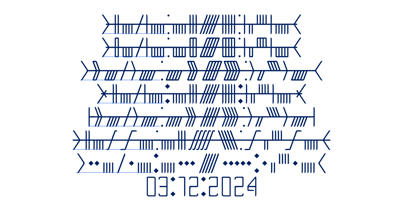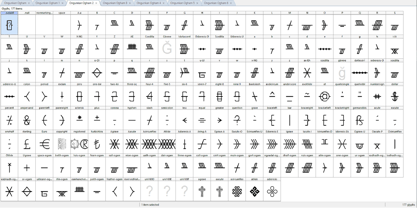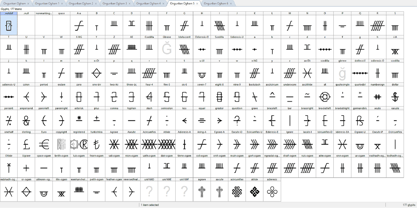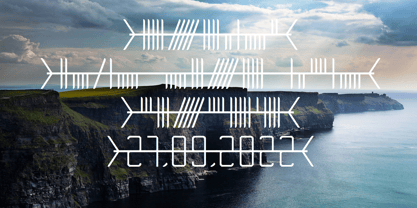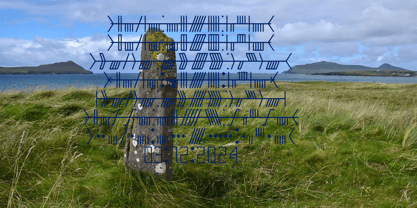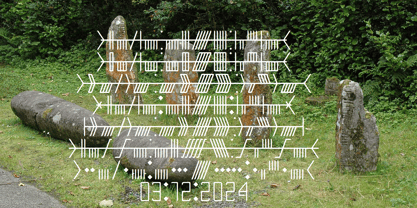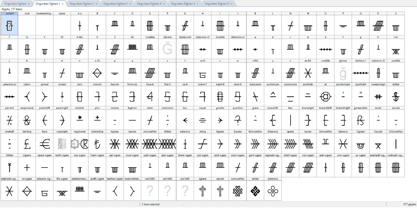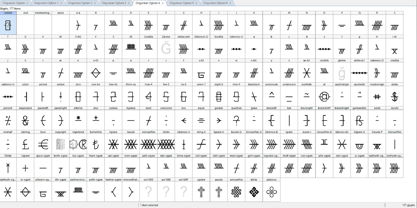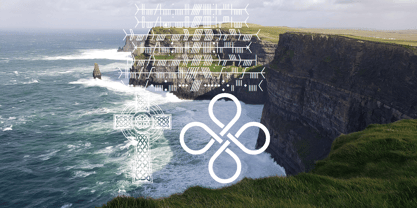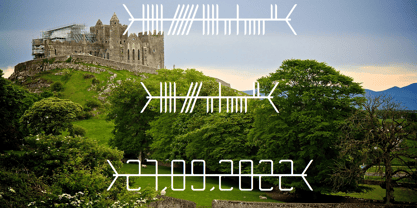
Ongunkan Ogham Family
by Runic World Tamgacı
The Ongunkan Ogham Family Font Family was designed by Osman Nuri ALKAN and published by Runic World Tamgacı. Ongunkan Ogham Family contains 7 styles and family package options. More about this family
These ogham fonts include a variety of writing styles. Ogham is an alphabet that appears in monumental inscriptions from the 4th to 6th centuries AD and in manuscripts from the 6th to 9th centuries AD. It was used primarily in Primitive and Old Irish scripts, as well as Old Welsh, Pictish, and Latin. It was inscribed on stone monuments throughout Ireland, particularly in Kerry, Cork, and Waterford, and in England, Scotland, the Isle of Man, and Wales, particularly in Pembrokeshire in South Wales. Ogham is likely older than the earliest inscriptions—some scholars believe it dates to the 1st century AD—because the language used contains elements from before the 4th century. It is thought to have been inspired by or modeled on Roman, Greek, or Runic scripts. It was designed for writing Primitive Irish and was likely considered a form of secret communication.
Designers: Osman Nuri ALKAN
Foundry: Runic World Tamgacı